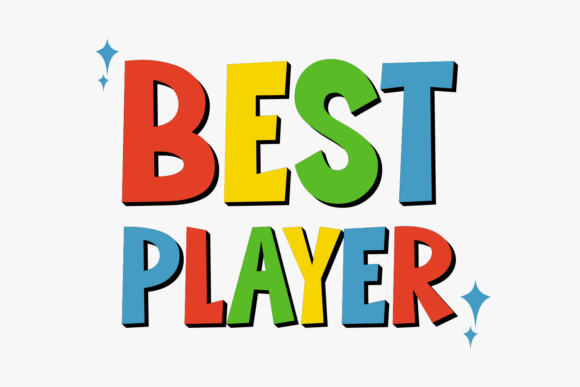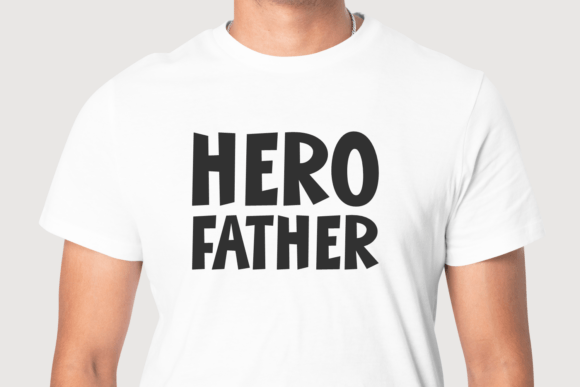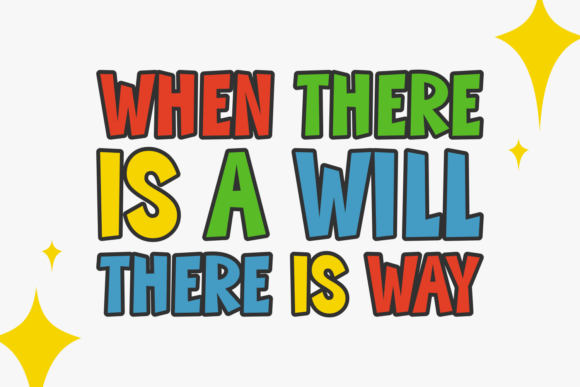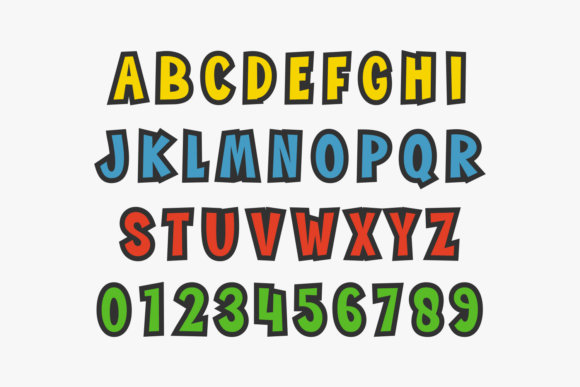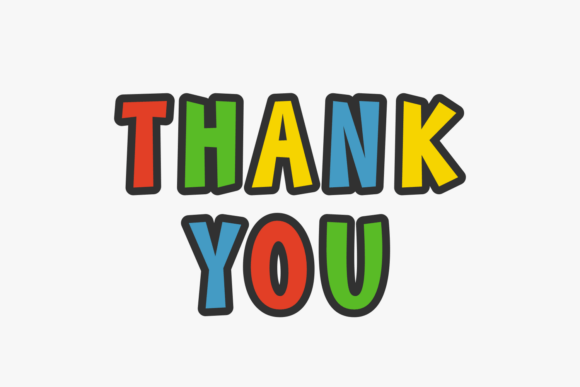
Unleash Your Creativity with Champion Hero Font: The Ultimate Multifaceted Typeface
Embark on a delightful creative journey with the Champion Hero font, a versatile and playful typeface that is sure to capture your imagination. This aptly named font style is truly a chameleon in the world of typography, capable of evoking a range of emotions and styles with ease. Whether you’re a designer, crafty DIY enthusiast, or simply someone looking to add a touch of personality to your project, Champion Hero is the perfect choice.
The Playful and Cartoonish Appeal of Champion Hero
Champion Hero’s cartoonish and playful characteristics make it an ideal font for comic strips, children’s books, and other creative projects aimed at a young audience. Its light-hearted and cheerful appeal is sure to bring a smile to anyone’s face, making it a dream come true for parents, educators, and anyone wanting to create engaging content for kids. With Champion Hero, you can craft unique birthday invitations, design amusing Father’s Day cards, or create entertaining educational materials that will captivate your audience.
Adding Chic Sophistication to Your Brand
But Champion Hero is more than just a playful font – it’s also a stylish and sophisticated one. When used in branding or emblazoned on t-shirts, it lends an air of chic elegance that’s sure to make your company stand out. Whether you’re a fashion brand, a lifestyle business, or simply a creative entrepreneur, Champion Hero can help you establish a unique visual identity that resonates with your audience. Its versatility and adaptability make it an apt pick for companies wanting to convey a sense of fun and approachability while maintaining a level of sophistication.
Endless Creative Possibilities with Champion Hero
One of the best things about Champion Hero is its endless creative possibilities. This multifaceted font style can be used in a wide range of projects, from:
- Comic strips and graphic novels
- Children’s books and educational materials
- Branding and advertising campaigns
- T-shirts and apparel
- Birthday invitations and party decorations
Whether you’re a professional designer or a crafty DIY enthusiast, Champion Hero offers a world of creative possibilities at your fingertips. Its flexibility and adaptability make it easy to use in various contexts, ensuring that your project will always look great and stand out from the crowd.
Why Choose Champion Hero Font?
- Unique and playful style: Champion Hero offers a fresh and distinctive look that’s sure to capture attention.
- Versatility and adaptability: This font style can be used in a wide range of projects and contexts.
- Ease of use: Champion Hero is easy to read and works well in both digital and print formats.
- Emotional connection: This font style is designed to evoke joy and positivity, making it perfect for projects aimed at children or those that require a light-hearted touch.
In conclusion, Champion Hero font is a multifaceted typeface that offers a world of creative possibilities for designers, crafters, and anyone looking to add a touch of personality to their project. Its playful and cartoonish appeal makes it perfect for comic strips, children’s books, and other creative projects aimed at a young audience. At the same time, its chic sophistication and versatility make it an apt pick for companies wanting to establish a unique visual identity. So why not embark on a delightful creative journey with Champion Hero font today and see where your imagination takes you?